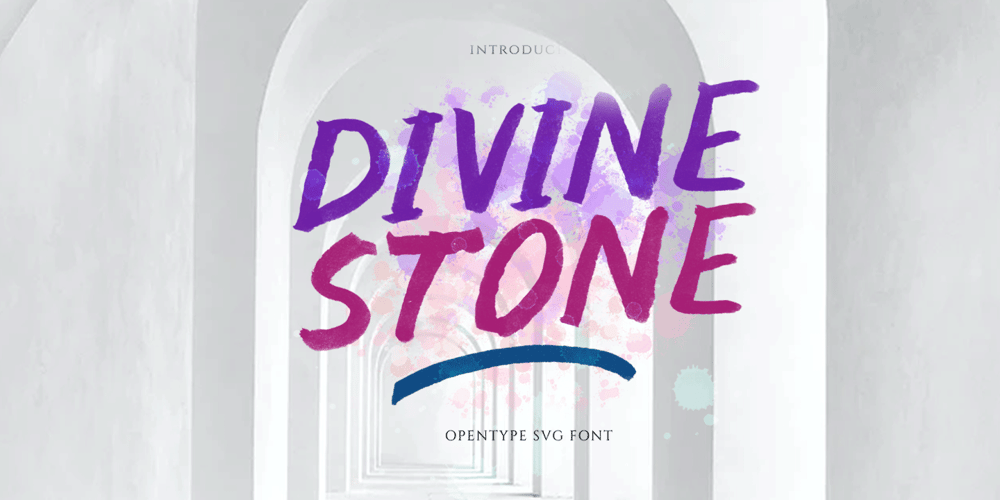
Divine Stone Font Family was designed by Hendry Juanda and published by Letterhend. Divine Stone contains 1 styles and family package options. Introducing, Divine Stone – A brush display font. This font has unique shape with watercolor brush effect, very catchy for fresh and playful theme design. This font also perfectly made to be applied especially in logo, and the other various formal forms such as invitations, labels, logos, magazines, books, greeting / wedding cards, packaging, fashion, make up, stationery, novels, labels or any type of advertising purpose.Features : uppercase and lowercase numbers and punctuation multilingual PUA encoded We highly recommend using a program that supports OpenType features and Glyphs panels like many of Adobe apps and Corel Draw, so you can see and access all Glyph variations. How to access opentype feature : letterhend.com/tutorials/using-opentype-feature-in-any-software/